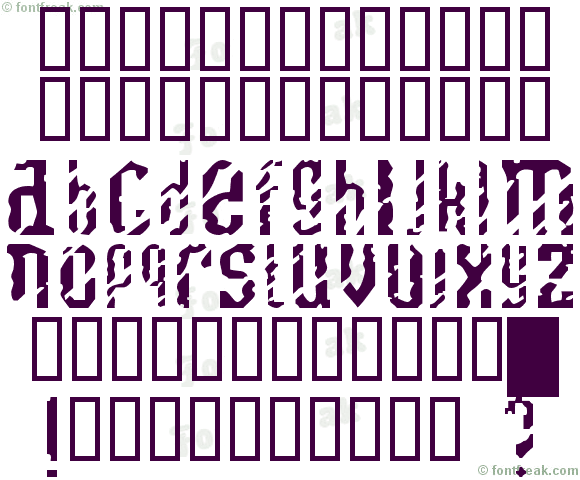
Scratchy
About Scratchy
The Scratchy font by Webdog is a unique display typeface that captures a playful and informal essence. As a freeware option, it is perfect for those seeking a distinctive style without any financial commitment. This font falls under the decorative category, characterized by its irregular, jagged strokes that invoke a hand-drawn feel. The uneven stroke weight adds an element of dynamism, while the varying contrast between thick and thin lines enhances its visual appeal. The spacing is loose, giving the letters room to breathe and emphasizing the font's whimsical nature.
Scratchy is well-suited for a variety of creative applications. It can be effectively used in children's book covers, where its quirky aesthetic can draw in young readers. Additionally, it works wonderfully for casual event flyers, such as open mic nights or local music gigs, where a laid-back vibe is essential. The font is also an excellent choice for social media graphics, allowing content creators to make eye-catching posts that stand out in crowded feeds. For small business owners, Scratchy can add a fun twist to product labels or packaging, making everyday items feel more personalized and engaging.
What sets this font apart is its ability to convey a sense of spontaneity and creativity. Its distinctive style not only captures attention but also evokes a sense of joy, making every project that utilizes it feel more dynamic and inviting. Whether for professional or personal use, Scratchy is sure to leave a lasting impression.